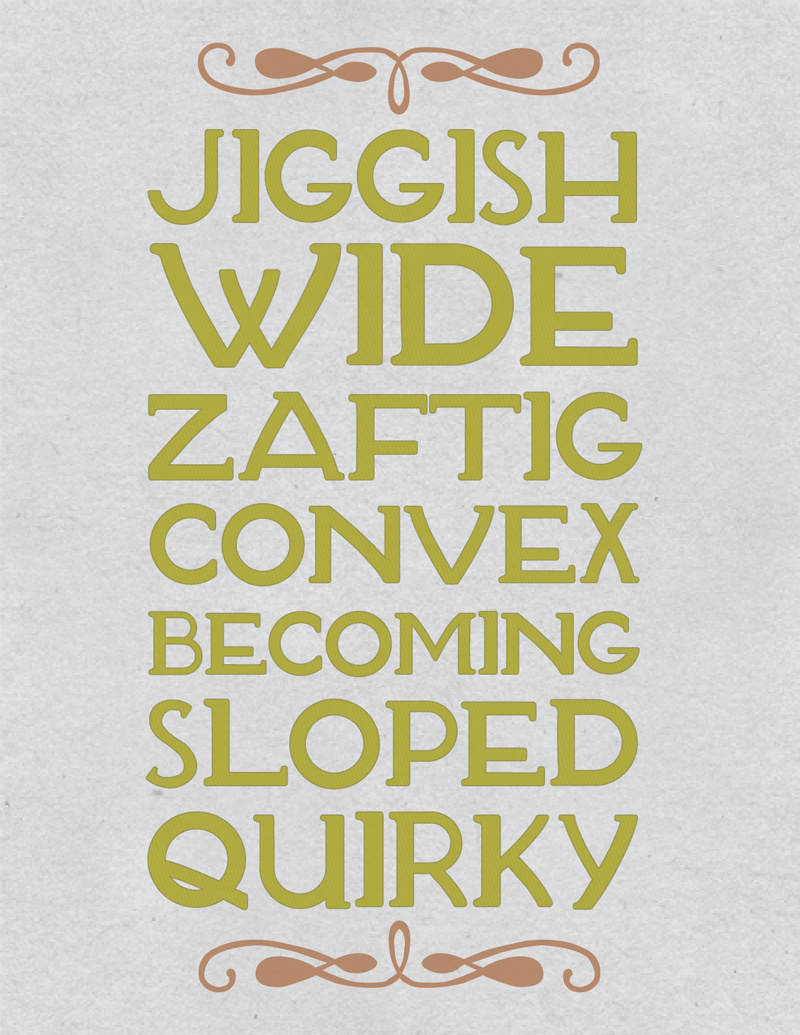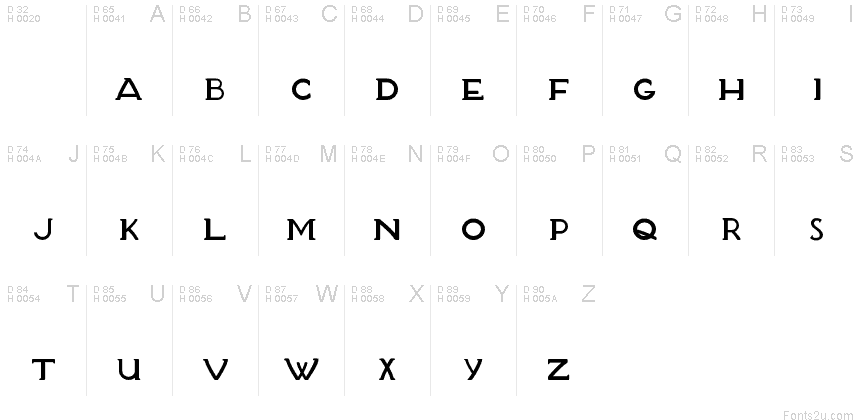
Blanket Type
A curvy and wide typeface with an art deco inspiration. The thick lines and serifs make this typeface appear sturdy and strong while still having pizazz.